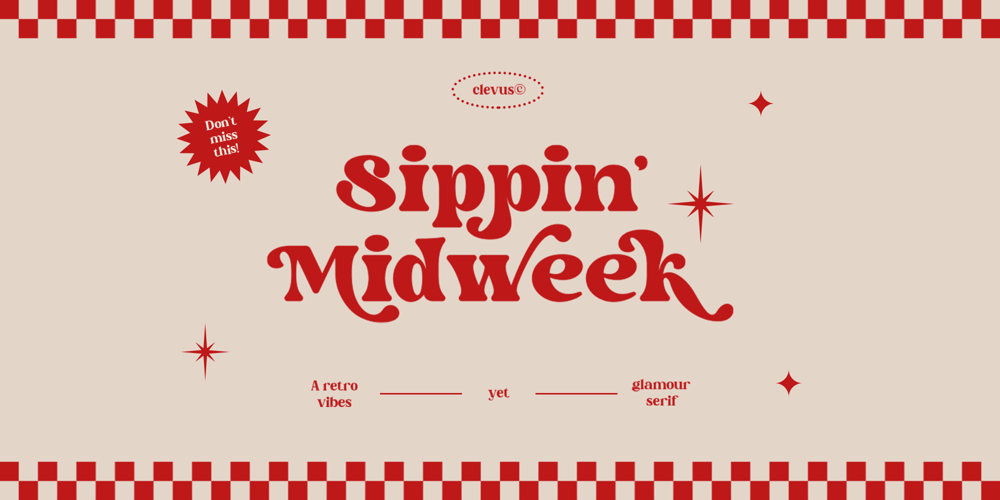
Sippin Midweek Font Family was designed by Alfinu Zafir and published by Clevus. Sippin Midweek contains 1 styles and family package options. Proudly present Sippin’ Midweek a retro vibes yet glamour serif.In “Sippin’ Midweek,” we blend retro charm with unmatched elegance. Its serif style provides a classic touch that speaks of the luxury of yesteryears. This font is suitable for poster designs, labels, and branding materials that require a classic and radiant ambiance. Add an elegant retro touch to your project with Sippin’ Midweek.Font Features :Lettres, numbers, symbols, and punctuation 55+ alternates and ligatures No special software required they may be used even in canva, any basic program /website apps that allows standard fonts That’s it folks! Multilingual SupportLanguage Support: Danish, English, Estonian, Filipino, Finnish, French, Friulian, Galician, German, Gusii, Indonesian, Irish, Italian, Luxembourgish, Norwegian Bokmål, Norwegian Nynorsk, Nyankole, Oromo, Portuguese, Romansh, Rombo, Spanish, Swedish, Swiss-German, Uzbek (Latin)Follow My Shop For Upcoming Updates Including Additional Glyphs And Language Support. And Please Message Me If You Want Your Language Included or If There Are Any Features or Glyph Requests, Feel Free to Send me A Message.Have a Good Day !